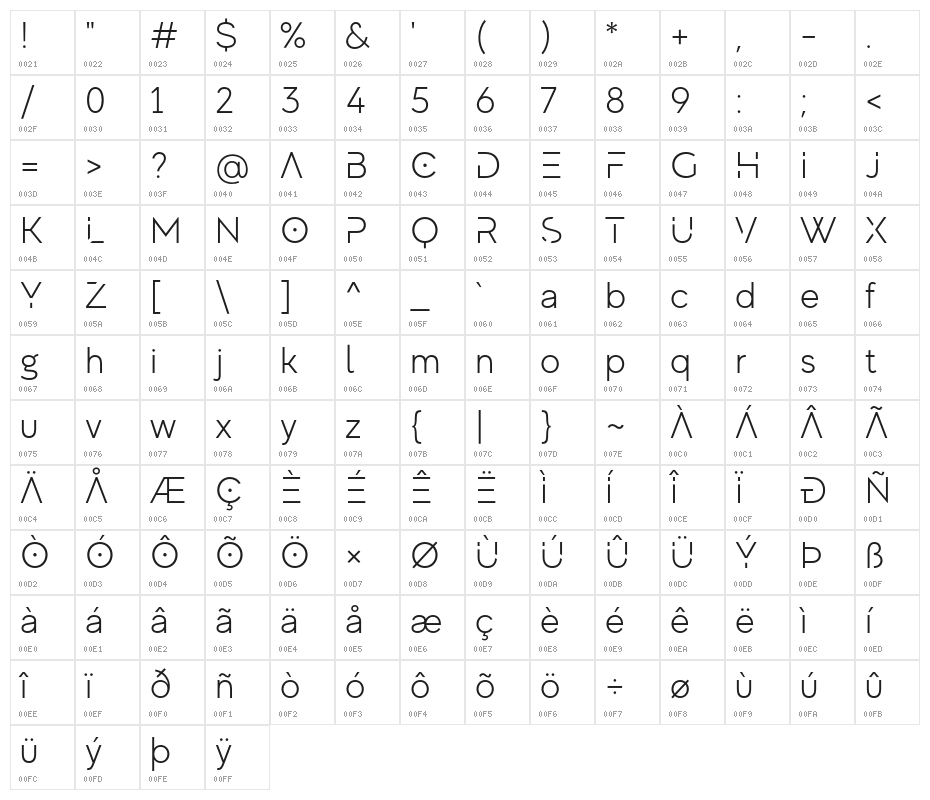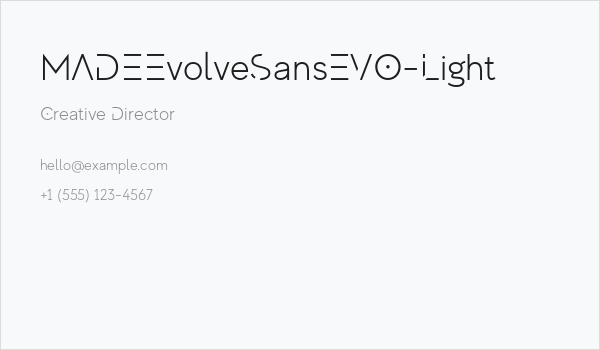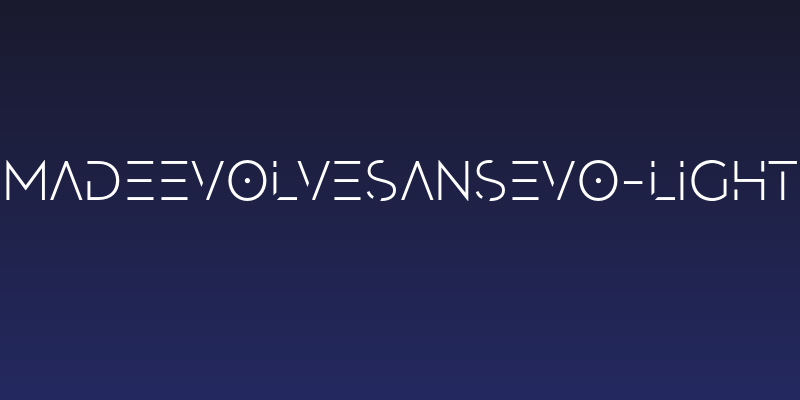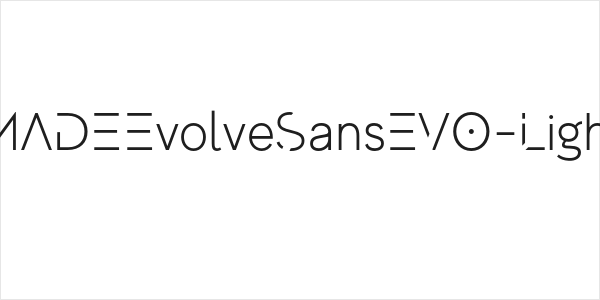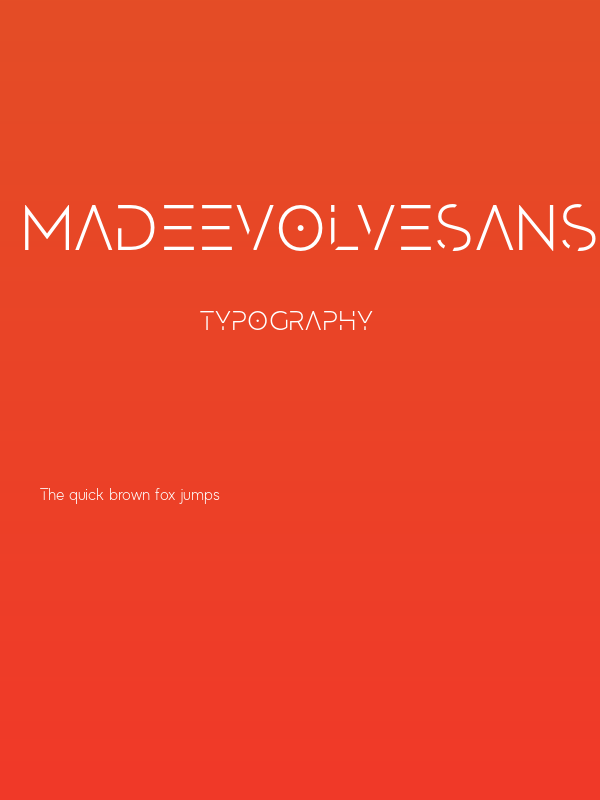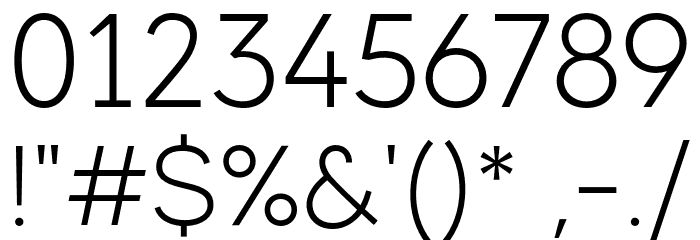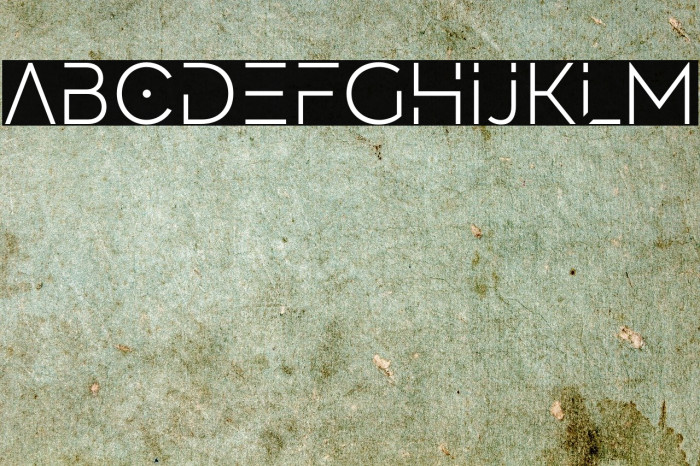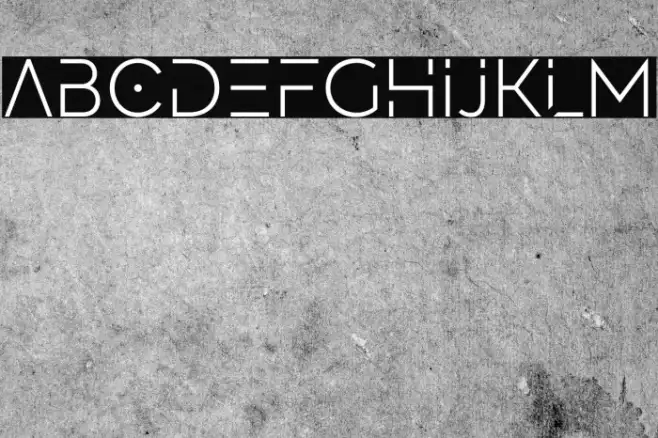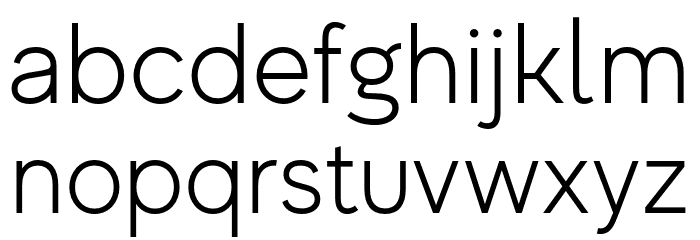
MADEEvolveSansEVO-Light Font
MADEEvolveSansEVO-Light Description
This font features a clean, geometric design with a modern aesthetic. The uppercase letters are characterized by their unique circular and angular elements, creating a futuristic feel. The lowercase letters maintain a consistent, smooth curvature that complements the uppercase. The numerals are straightforward, aligning with the overall minimalist style. Special characters are designed with simplicity and clarity in mind, ensuring they integrate seamlessly with the rest of the typeface. The font's light weight and open structure make it ideal for projects that require a contemporary and airy appearance.
| Use Case | Headlines, Logos, Web design |
| Proposed Projects | Ideal for tech branding, modern web design, minimalist posters, and innovative product packaging. |